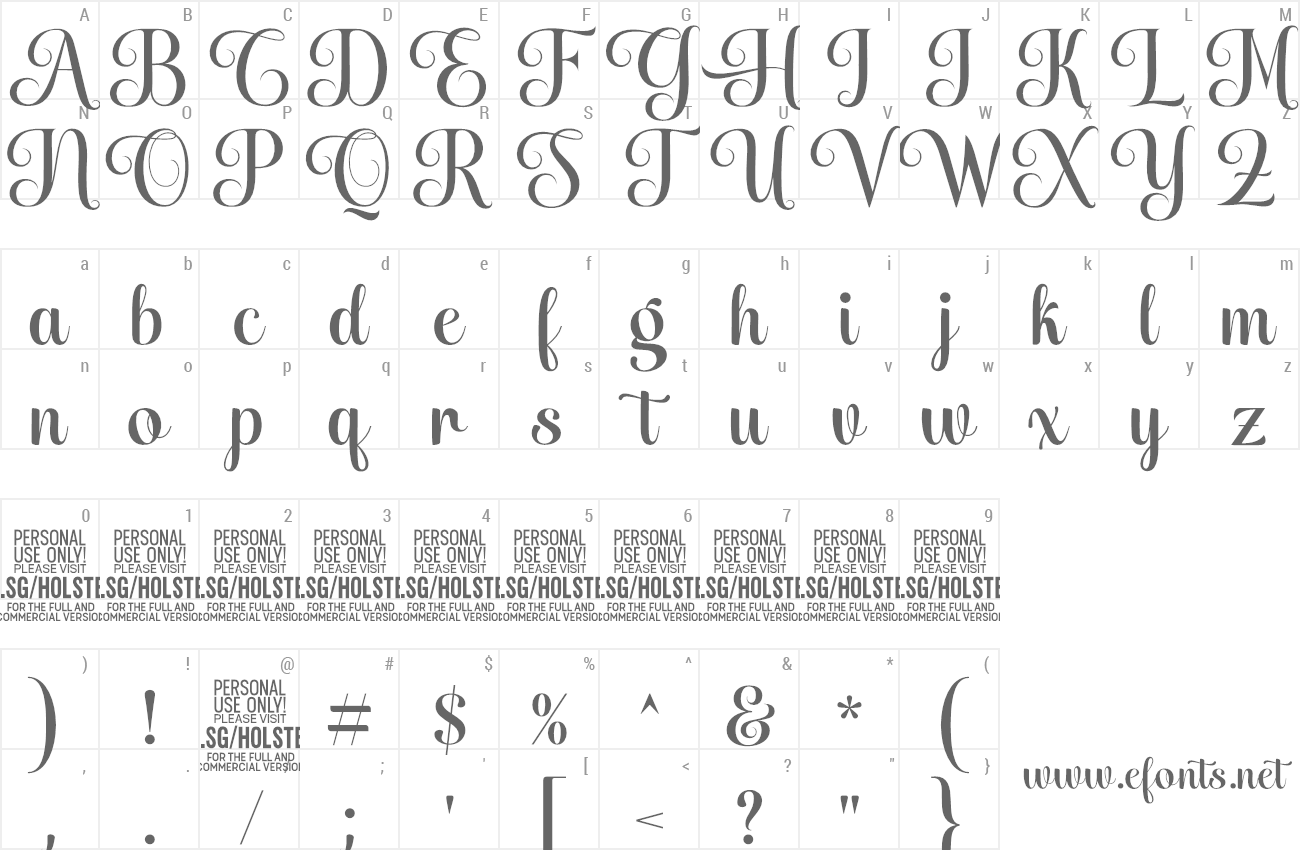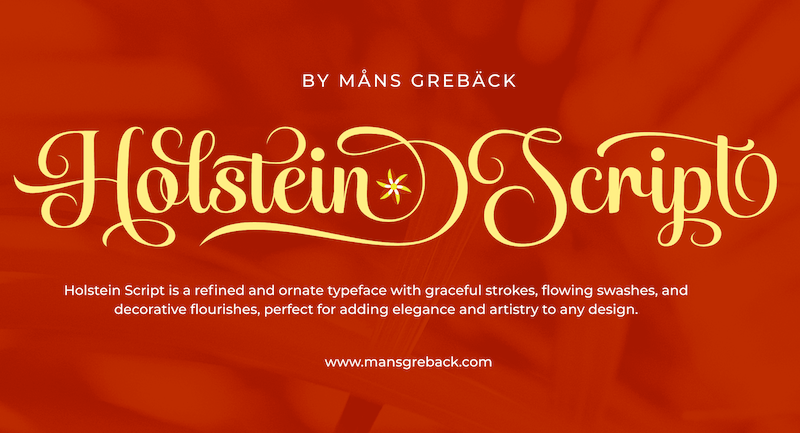
NOTE: This font is for PERSONAL USE ONLY! To purchase a commercial license, visit: https://www.mansgreback.com/product/holstein-script Holstein Script is a graceful calligraphic typeface where elegance meets playfulness. Its sweeping curves and ornate loops create a sense of charm while maintaining a refined structure. The tall ascenders and generous swashes give it a celebratory personality, yet it remains legible and balanced. For questions, please visit https://mansgreback.com/faq |